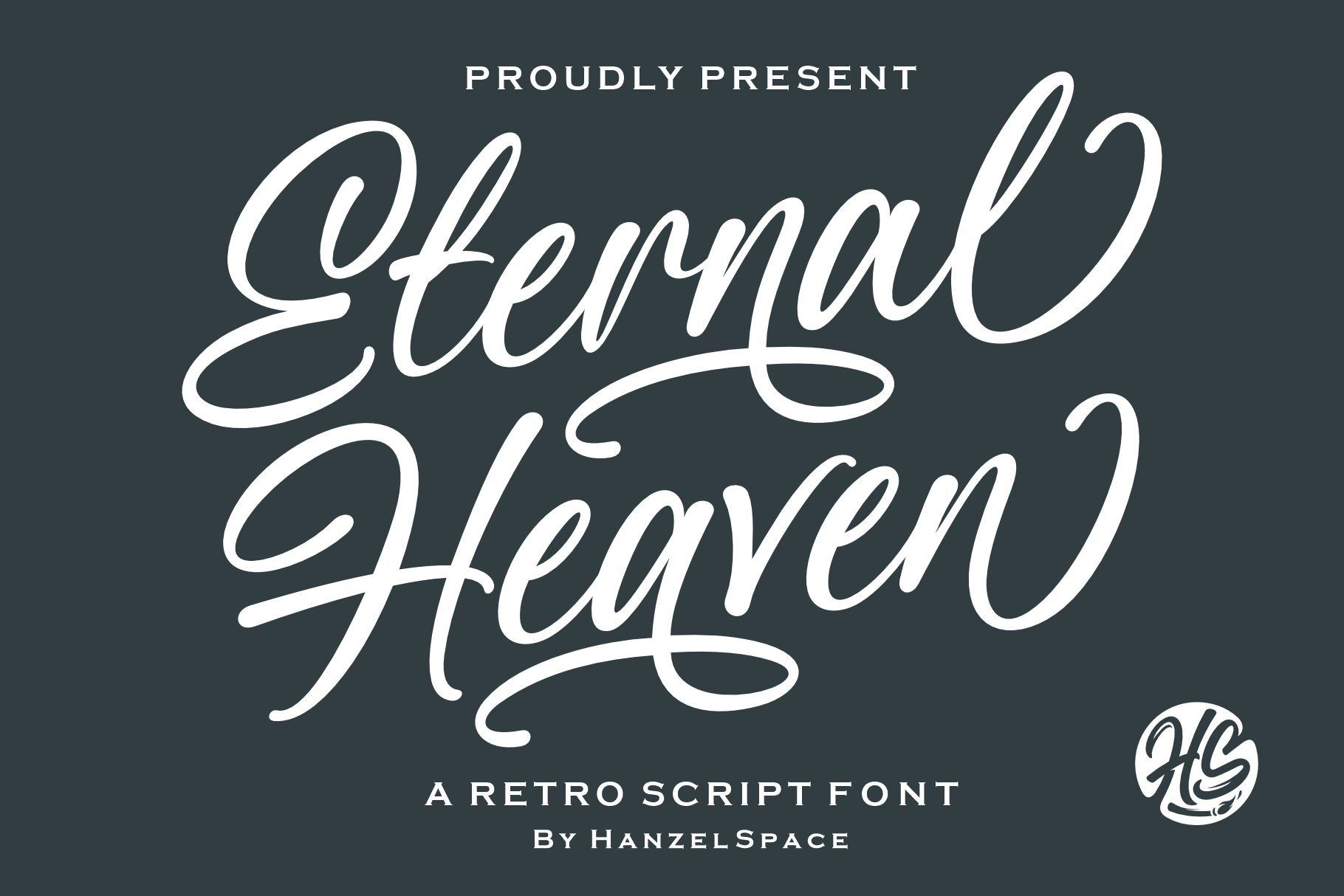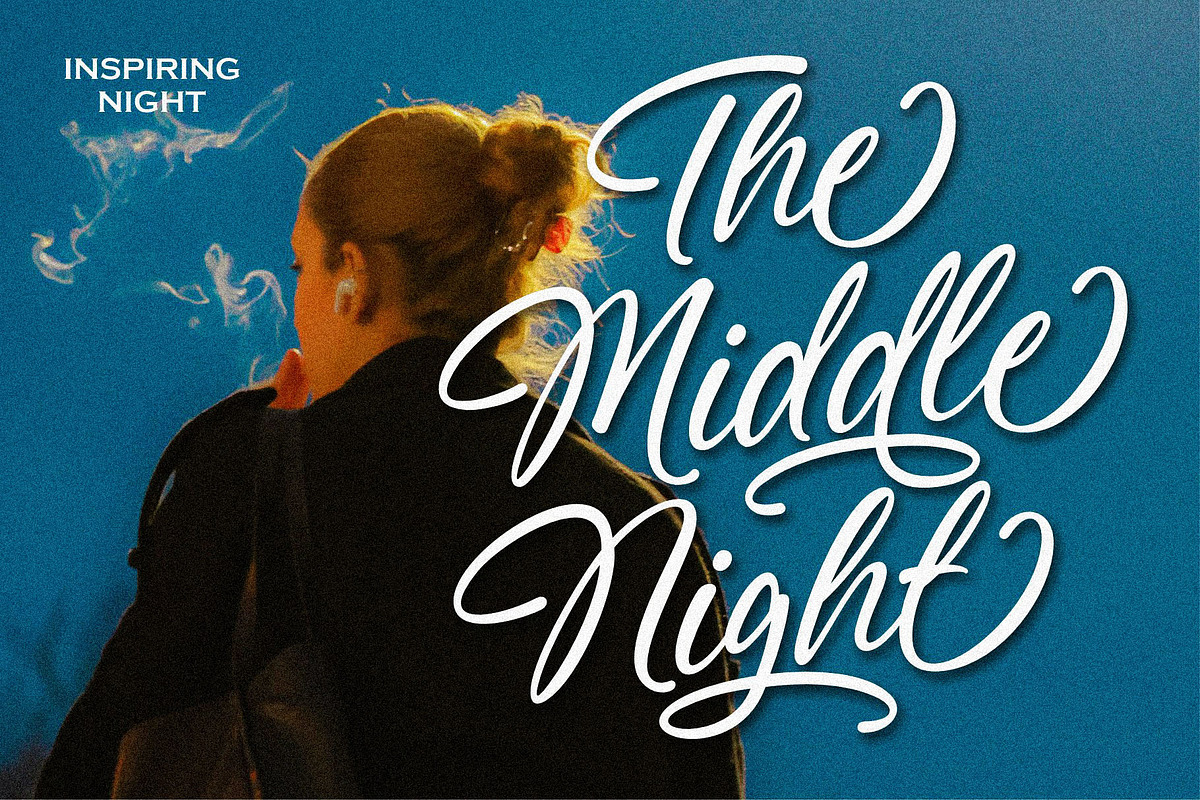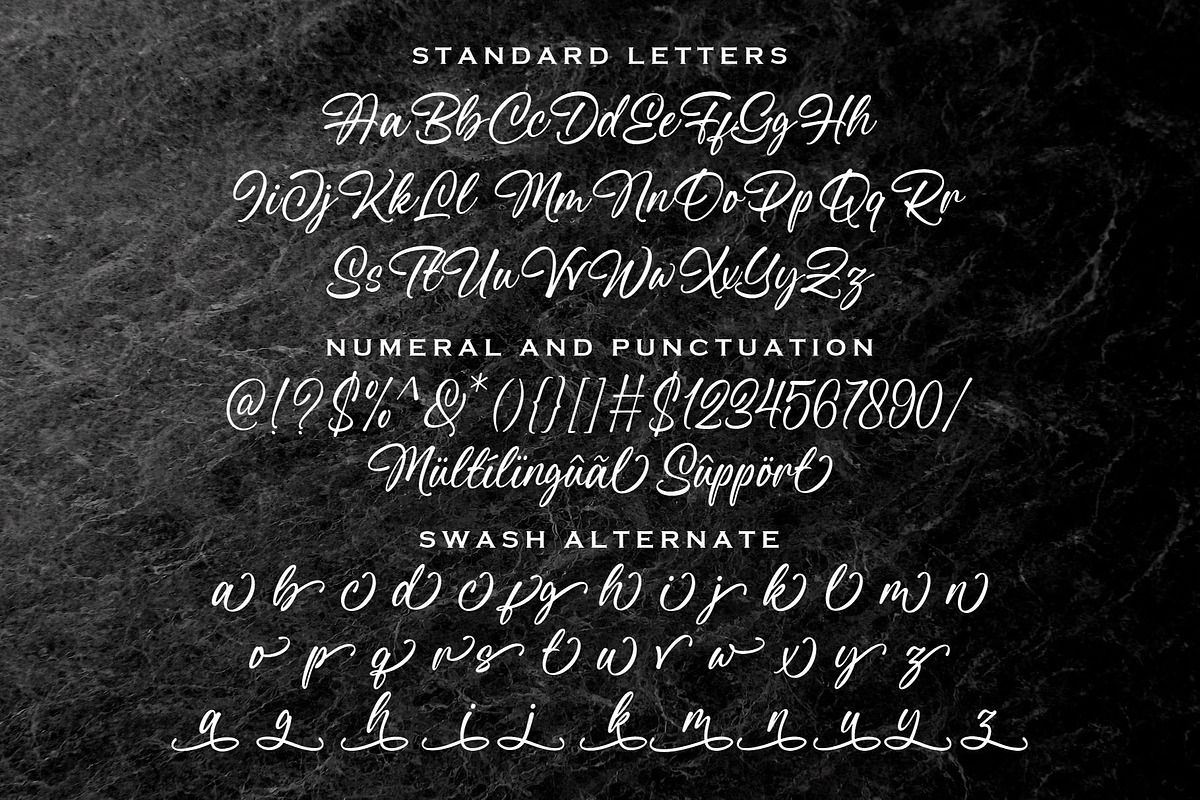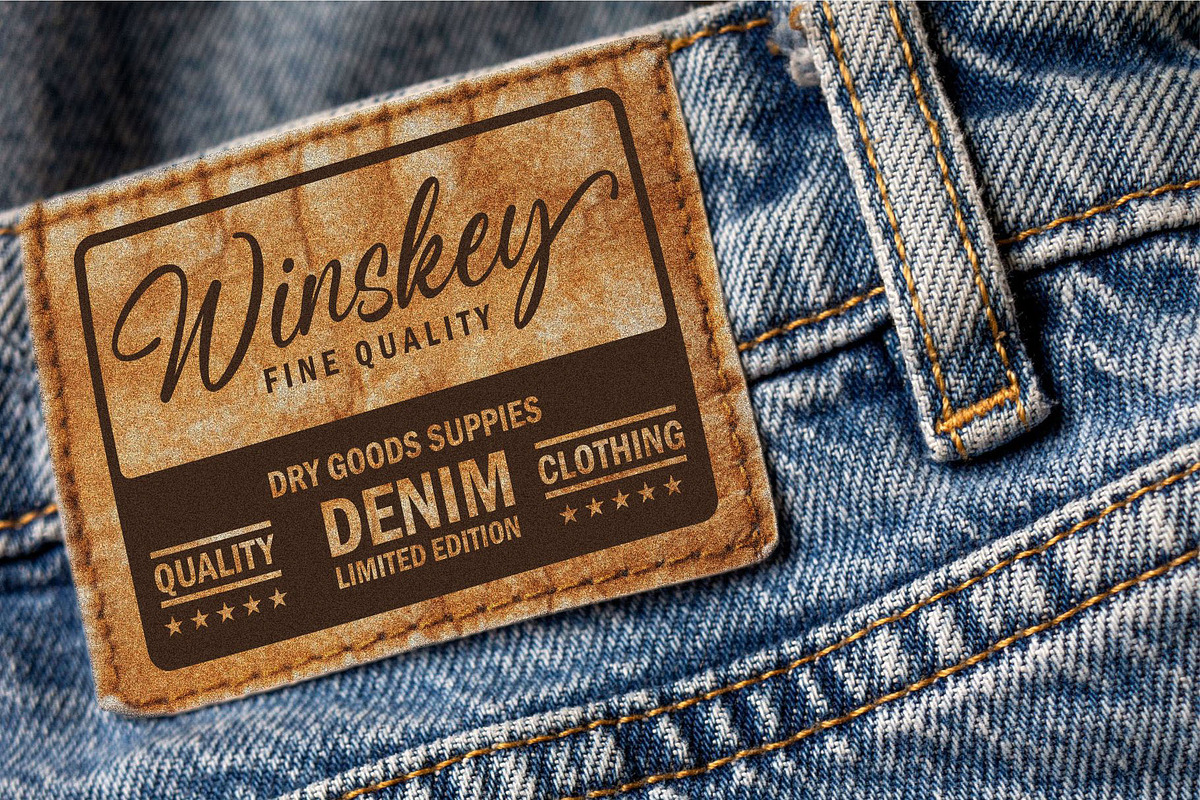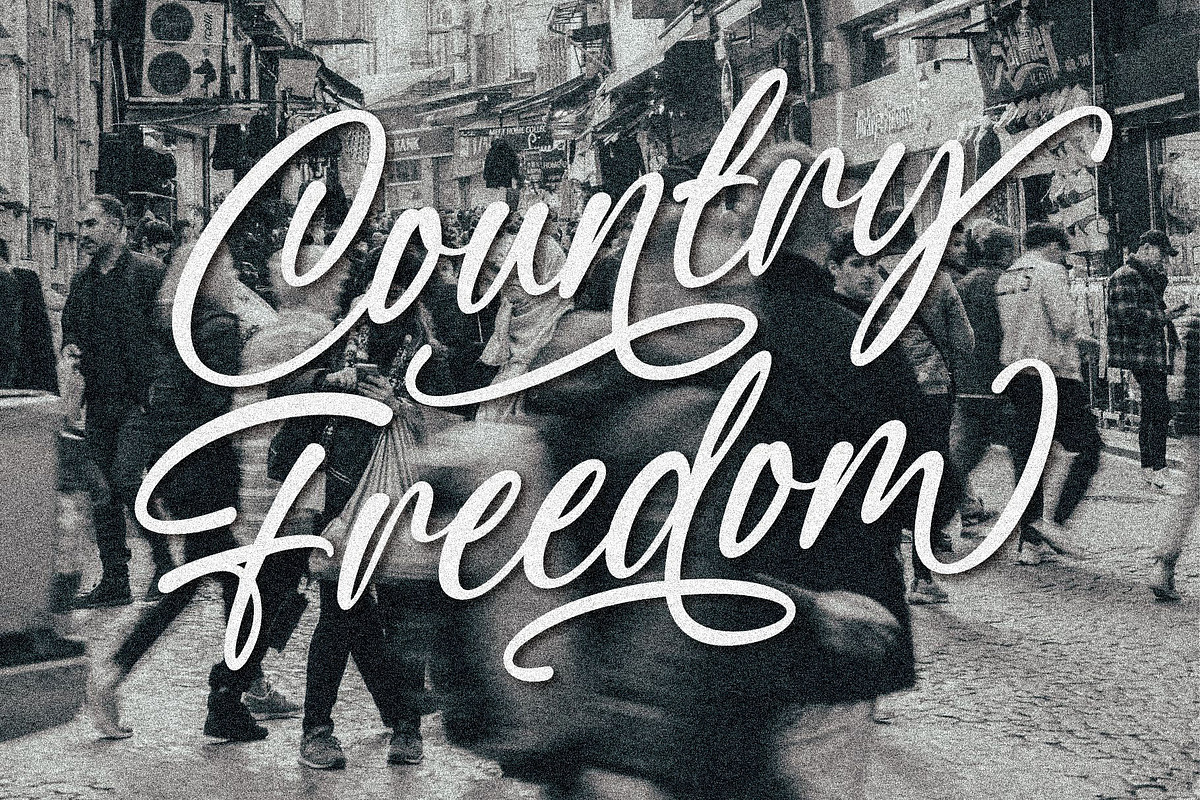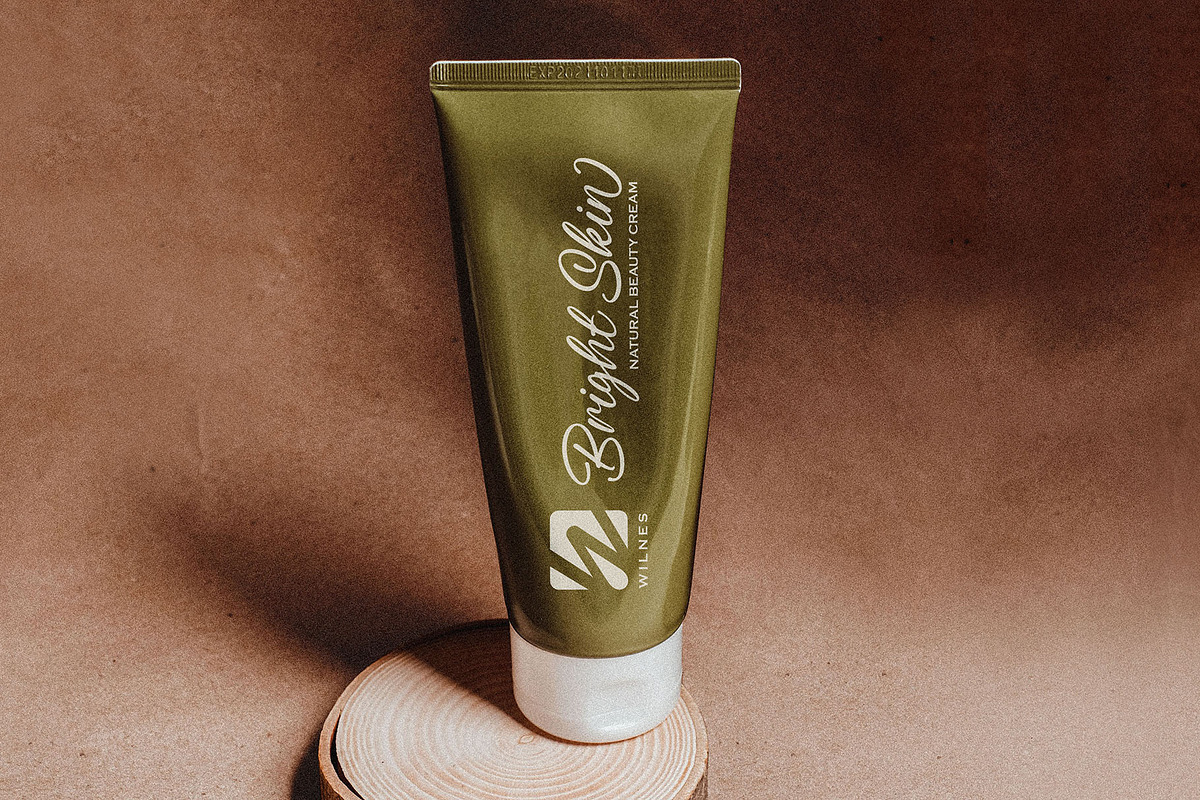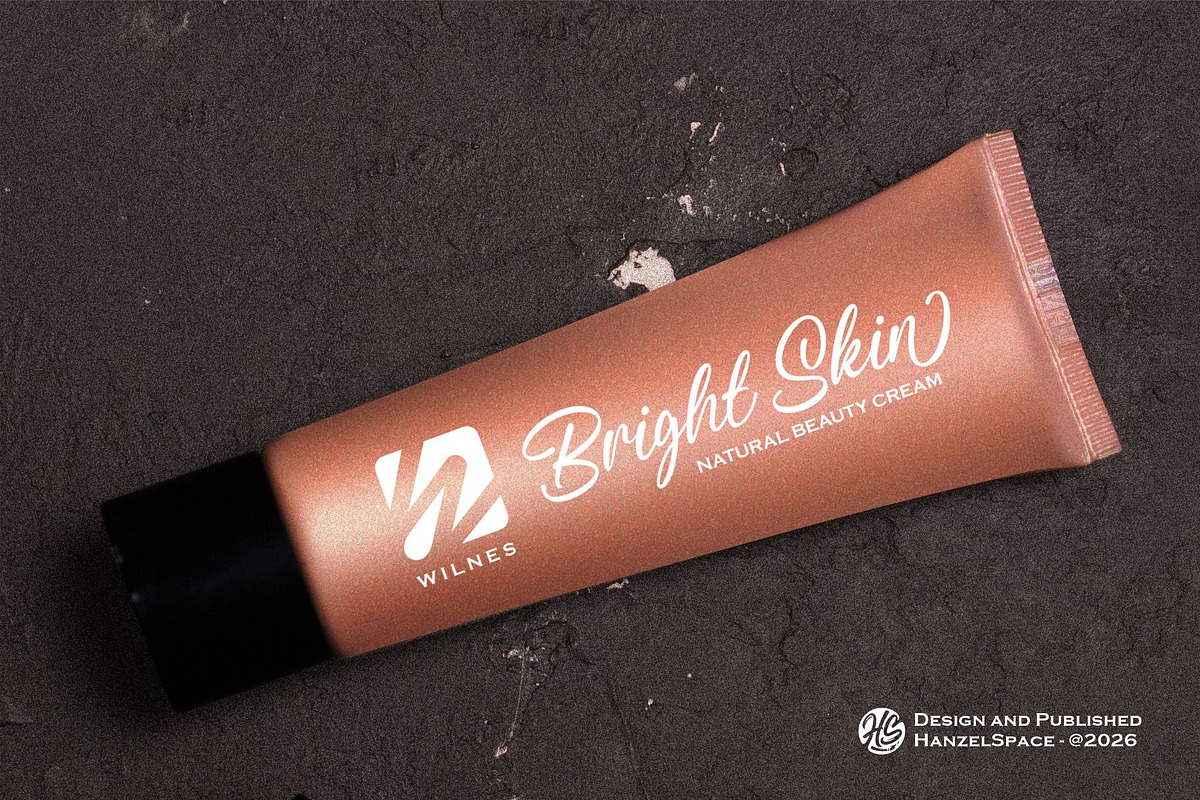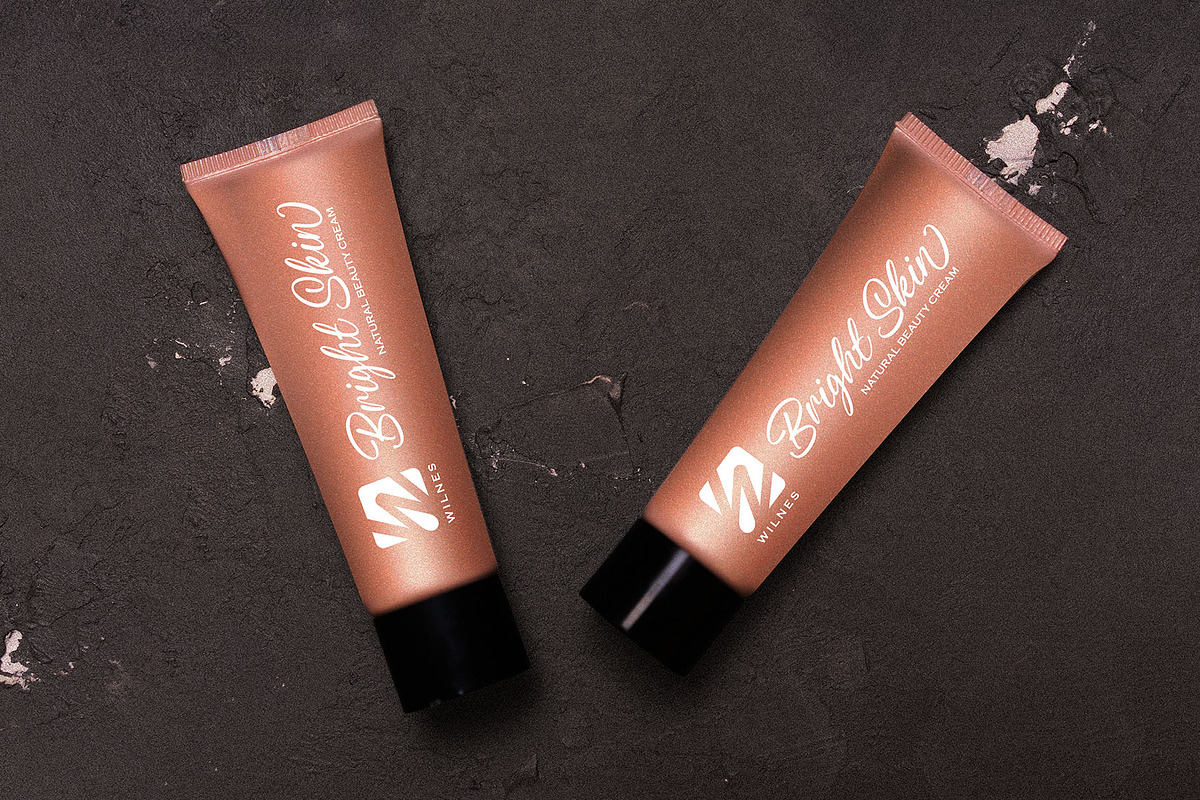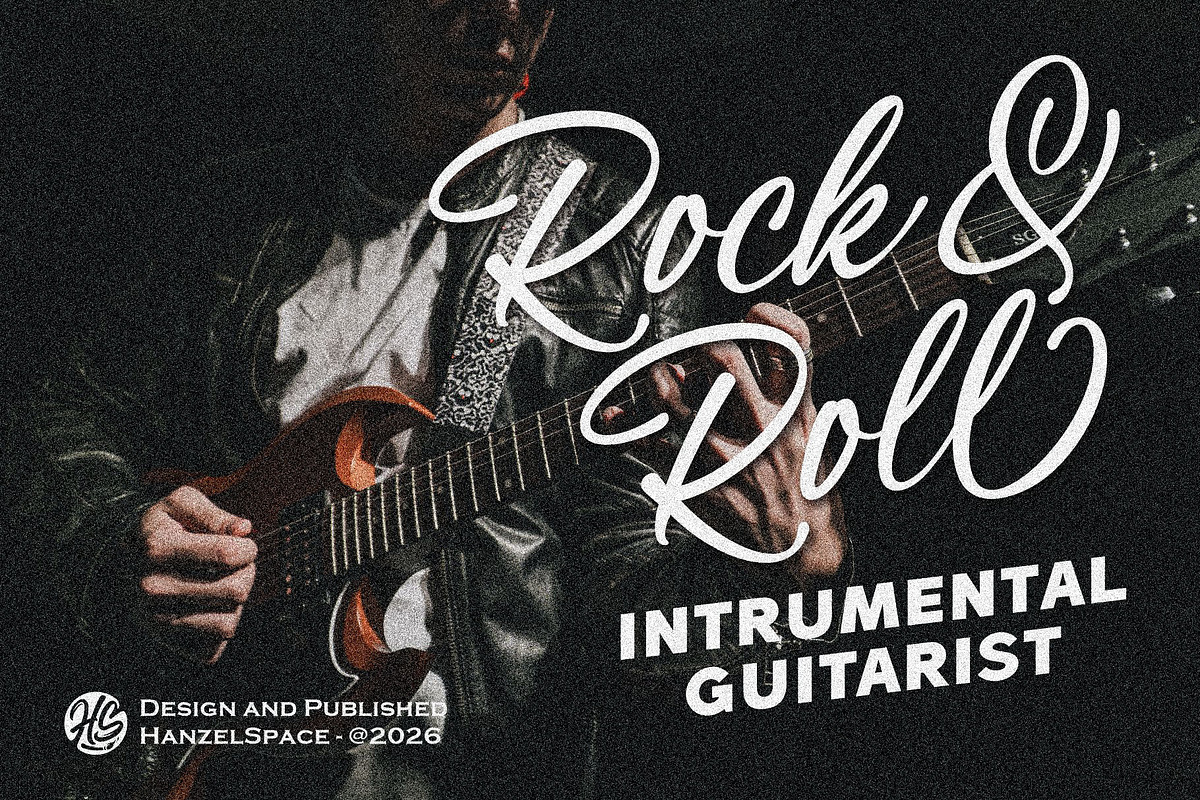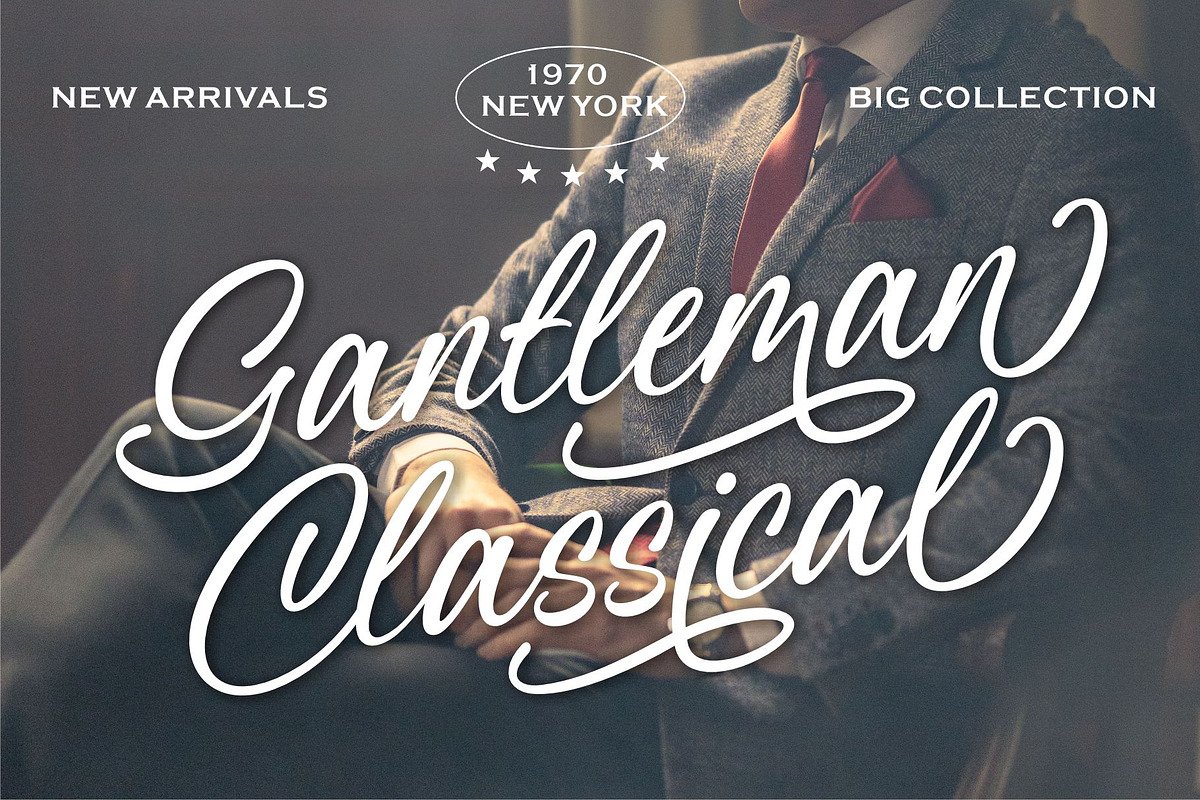
Eternal Heaven - Retro Script Font
Introducing the new font "Eternal Heaven" which I spent quite a bit of time creating. This font was crafted with meticulous care and confidence in every letterform, resulting in a beautiful and unique character with a retro style and classic touches.
Ending Swash & Alternate
Multilanguage Supports